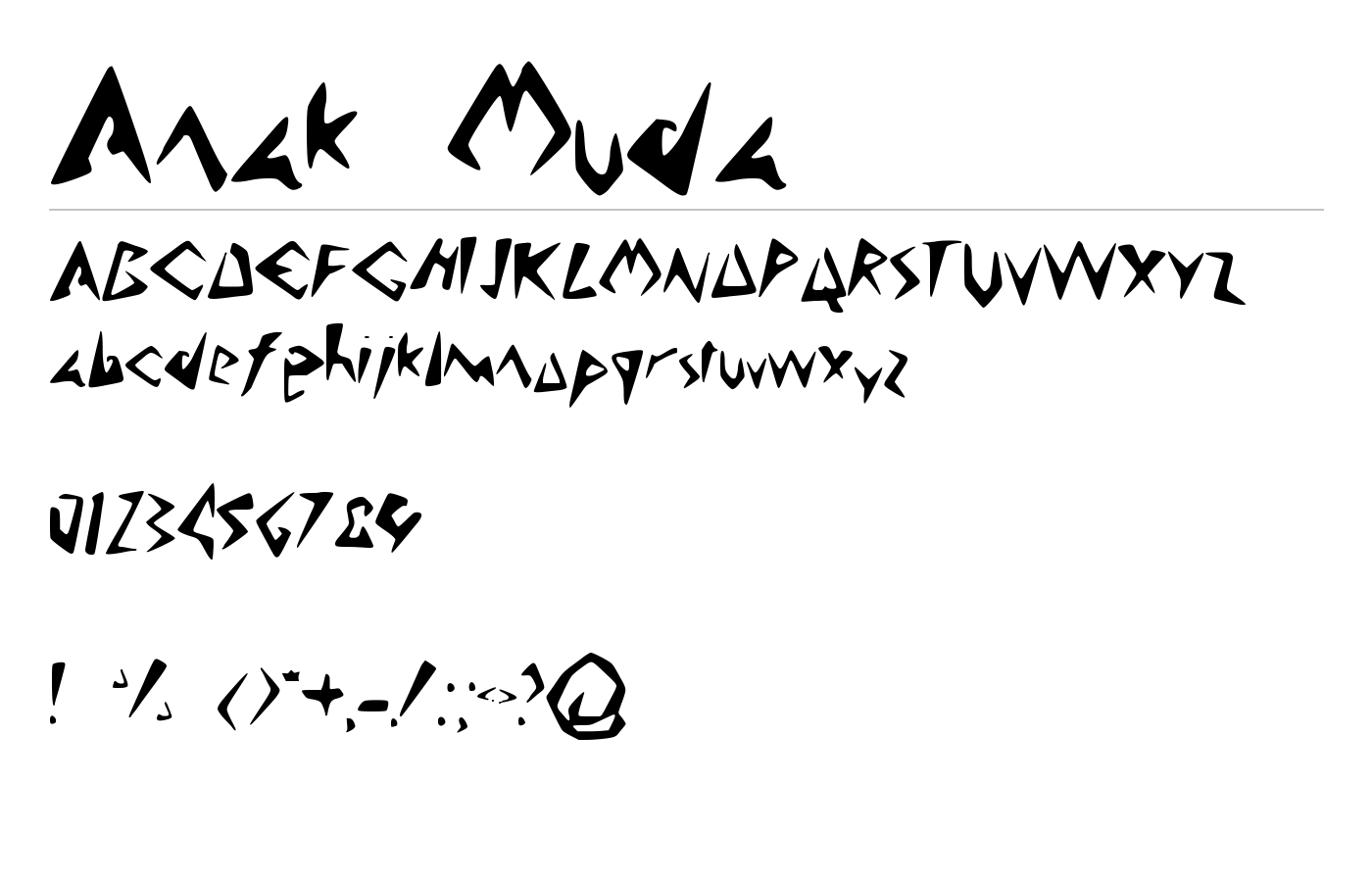
Anak_Muda is a bold and angular display font with a hand-drawn, edgy style that evokes a sense of energy and rebellion. Its sharp, irregular forms and striking geometric shapes give it a modern, youthful vibe perfect for creative branding, posters, or headlines that need a dynamic and unconventional look. This font works best in expressive, attention-grabbing designs where personality and impact are key.